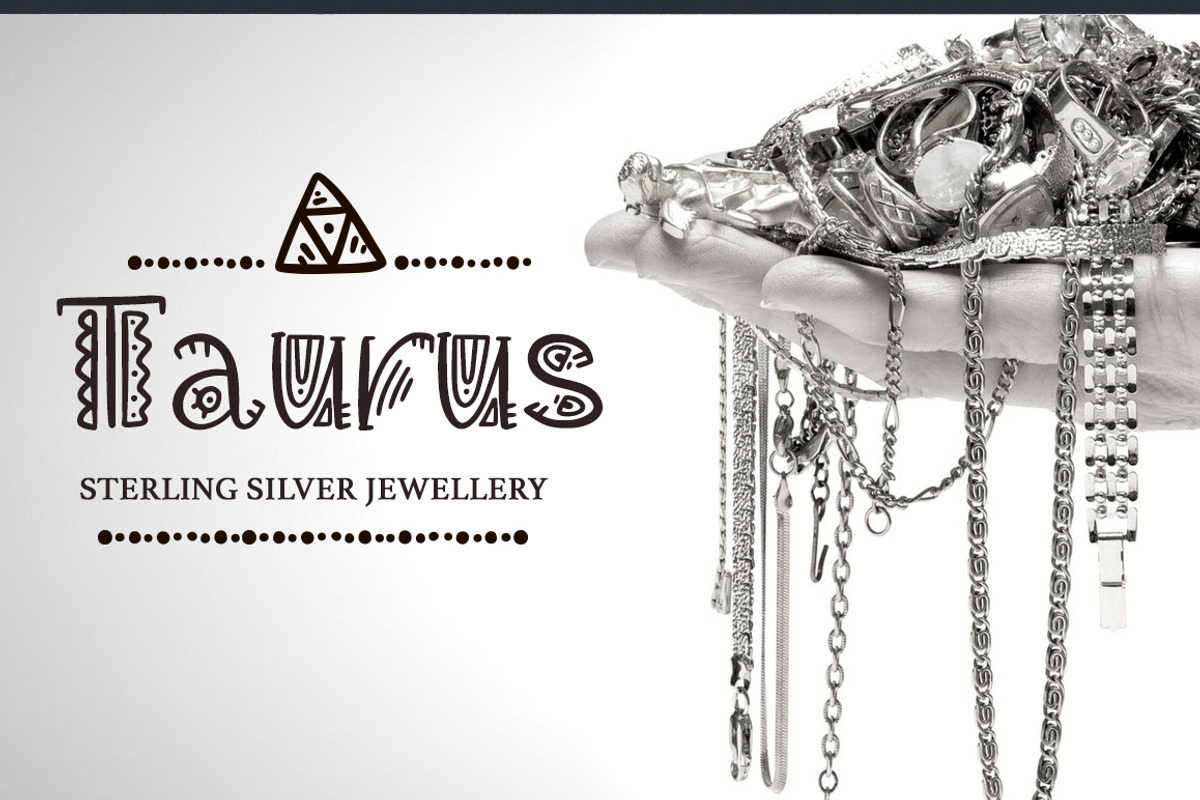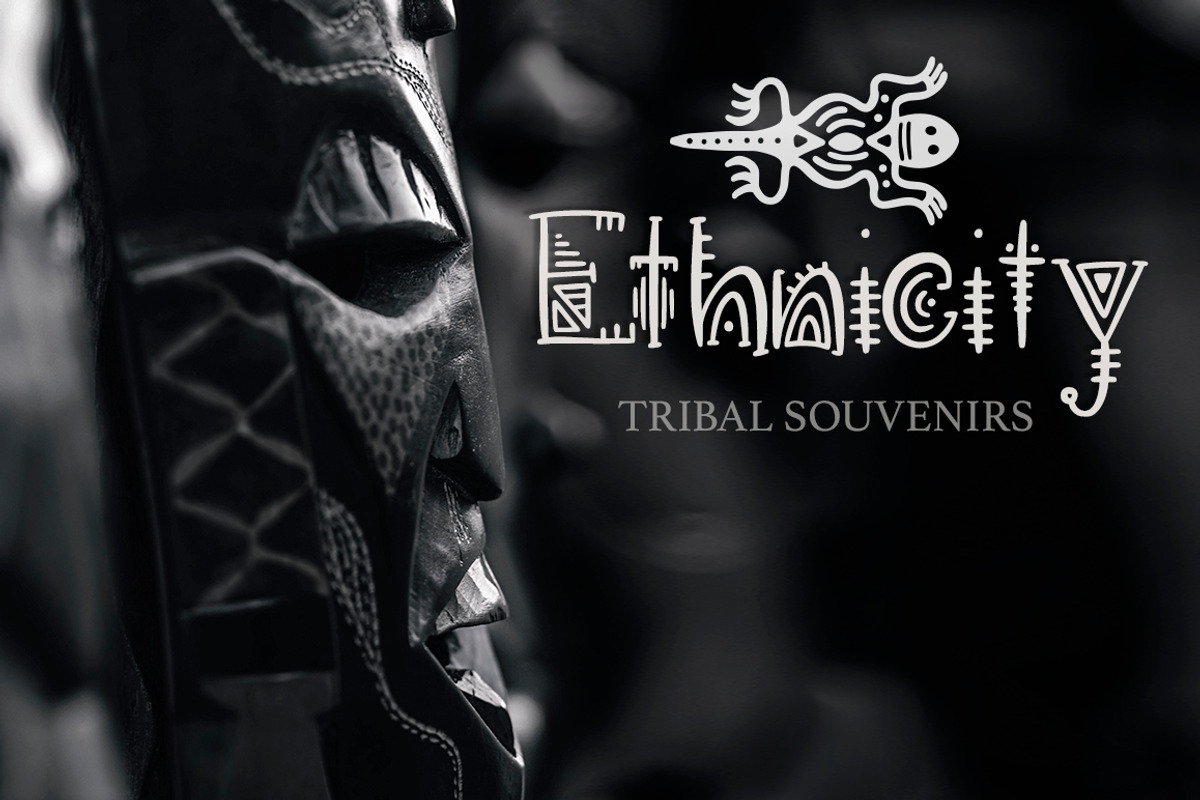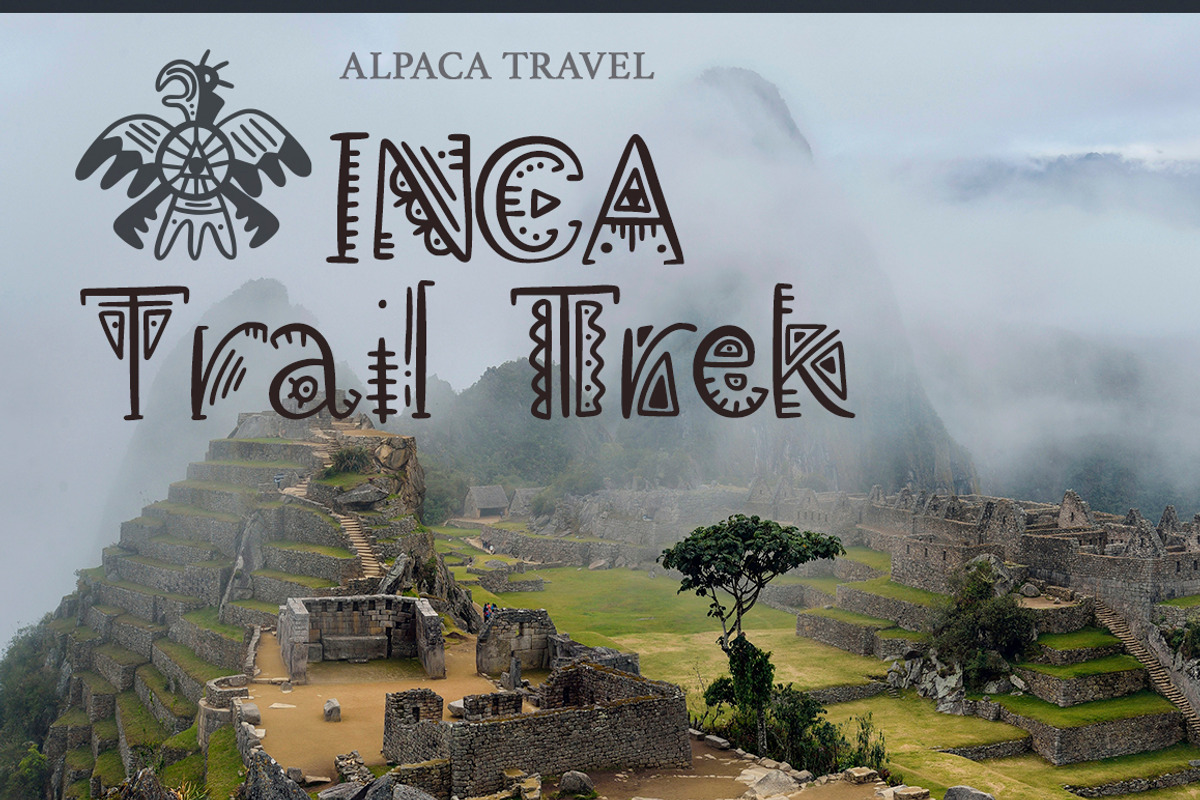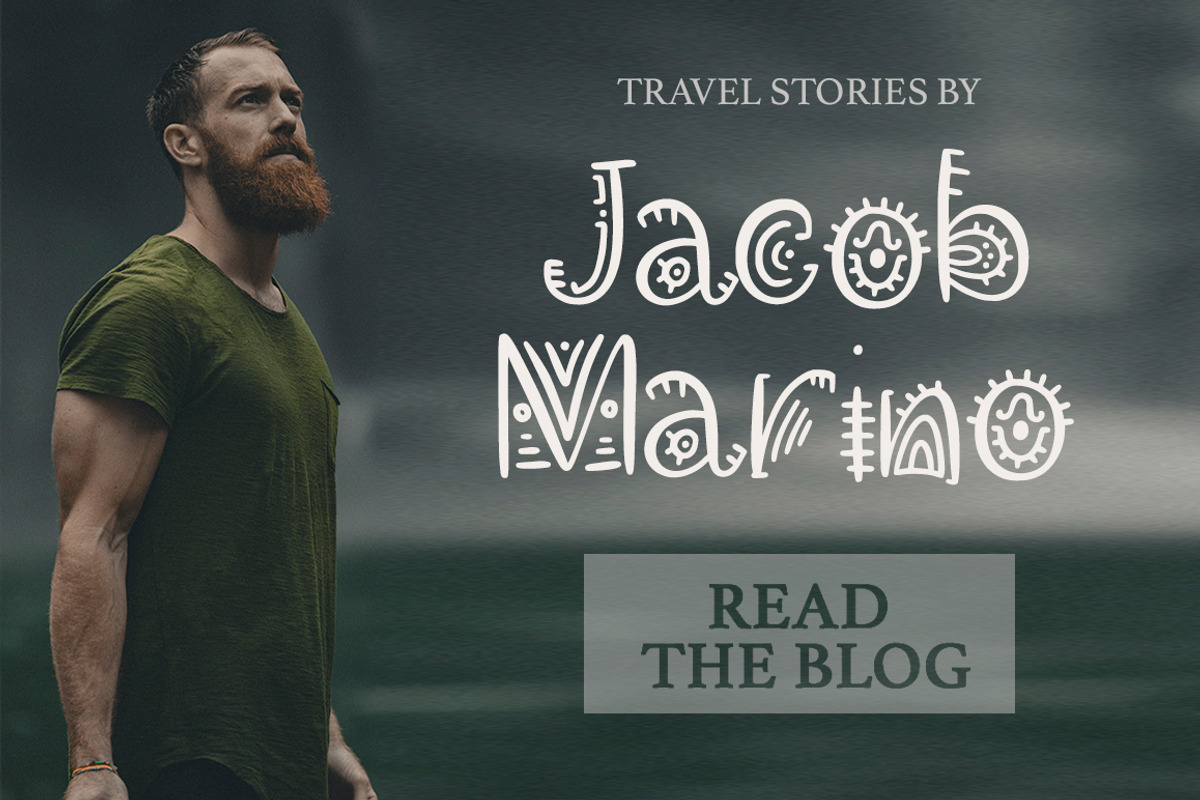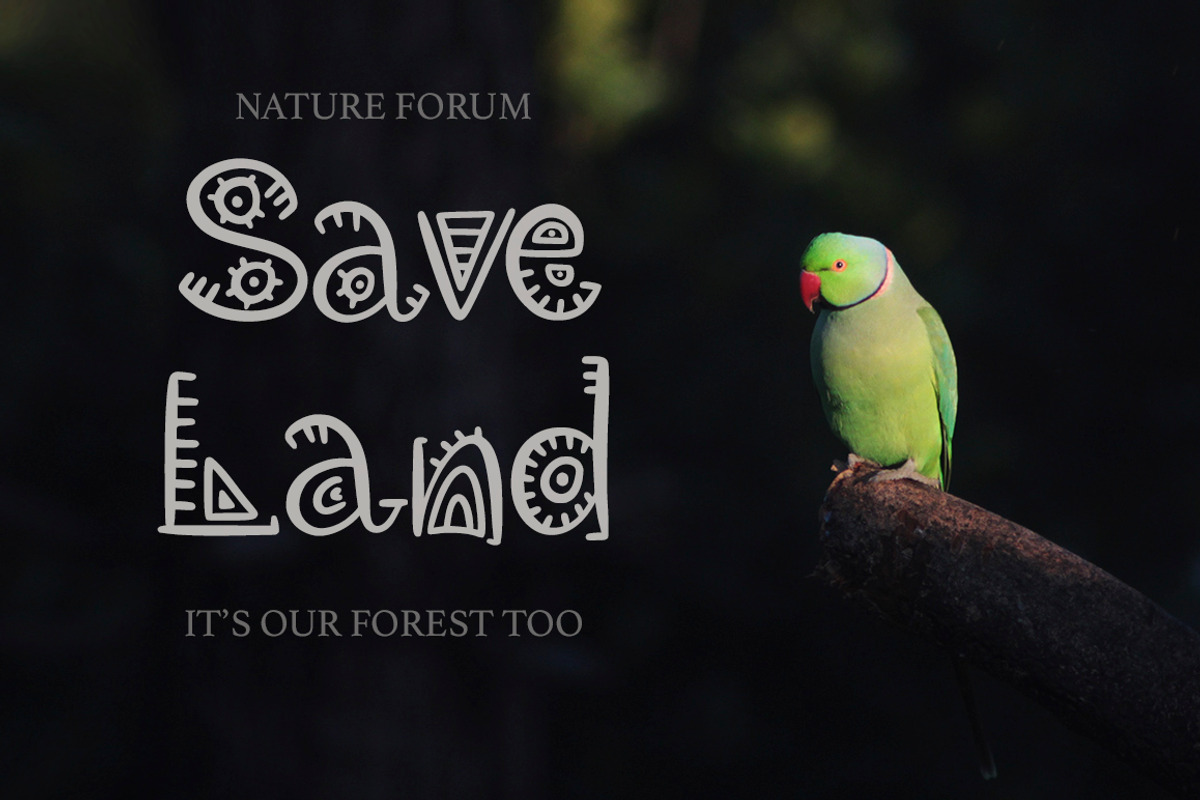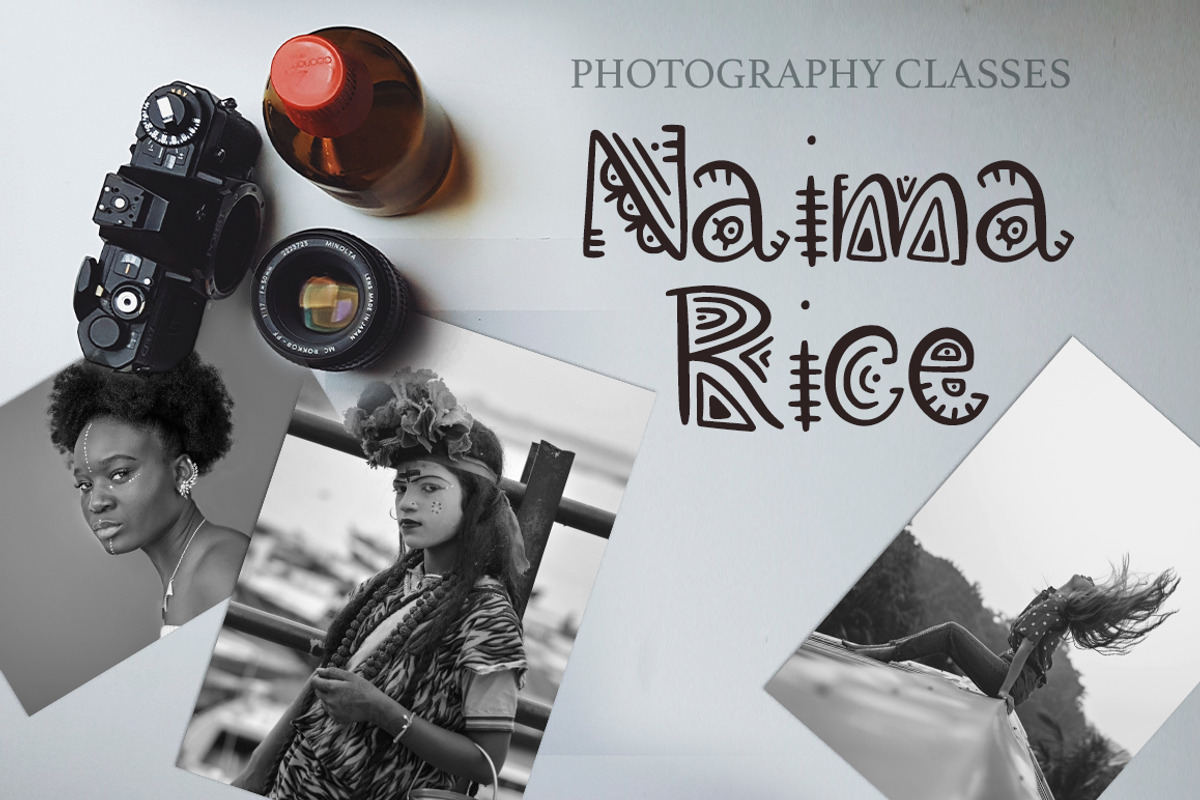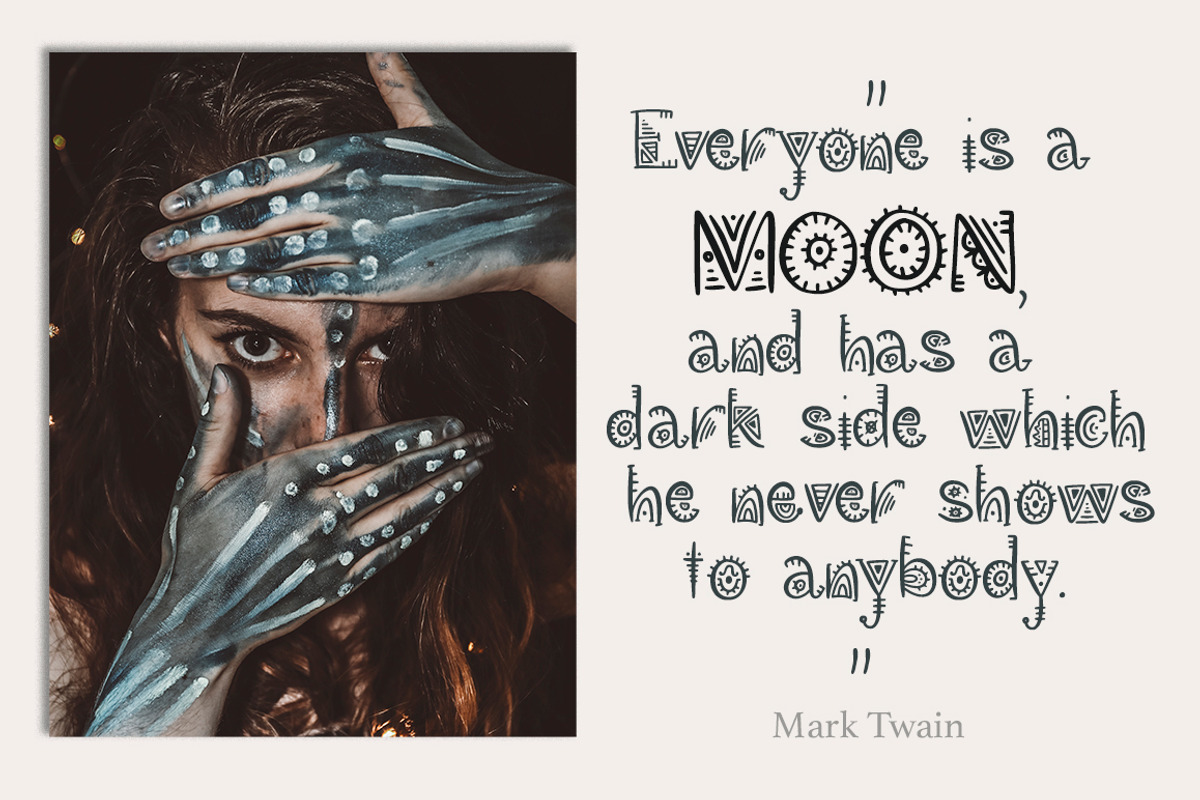
Aztec Soul. Font and 100+ graphics.
Introducing ‘Aztec Soul’ font & graphic collection!
Beautiful tribal font, 25 decorative Aztec ornaments and 100 seamless patterns inside.
‘Aztec Soul’ is a detailed hand drawn display font.
It has beautiful hand drawn texture of tribal Aztec ornaments in every letter. Font has full set of lowercase and uppercase letters and full set of alternate letters for them.
You also get 25 decorative Aztec ornaments elements to décor your texts, and make amazing prints for different creative things. So ‘Aztec Soul’ is not just a font, but creative set, created for beautiful typographic projects, amazing designs, like greeting cards, t-shirts, posters, mugs, branding materials, photography overlays and so much more!
You will receive 100 Seamless patterns based on aztec ornaments. Tribal and creative, native and geometric - these backgrounds are perfect for cards, invitations, printing, party packs, blog backgrounds, paper craft, party invitations, digital scrapbooking, photography album backgrounds and all creative projects! All pieces where drawn by hand and then carefully digitized. All patterns comes in black and white. Just blacks, just white. Simple and a little treacherous. Black and white is what goes on further south. It’s the ink of Aztec soul. Mix font and graphics to create amazing designs. ‘Aztec Soul’ font comes with PUA Unicode that gives you full access to the ligatures in software that doesn't support the extra characters. To access these characters you can use Font Book (Mac) or Character Map (Windows).
- Font has full set of lowercase and uppercase letters and full set of alternate letters for them.